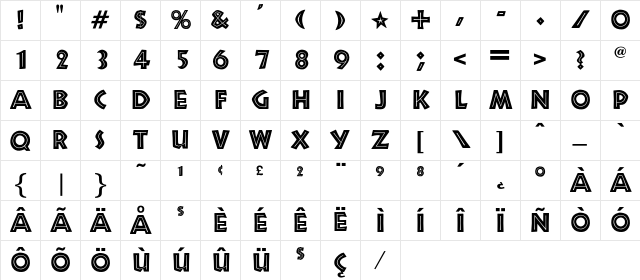
OPTINeulandInlineCaps Regular
Design Context for OPTINeulandInlineCaps
OPTINeulandInlineCaps is built around its visual character rather than neutral utility - its distinctive forms are designed to make an impression at display sizes.
Font Pairing: Pair with a clean neutral sans-serif for body copy to let OPTINeulandInlineCaps's character lead without overwhelming the composition.
Pro Tip: Use OPTINeulandInlineCaps exclusively at display sizes - it was designed to be seen, not read at length. Let a neutral companion handle body copy.